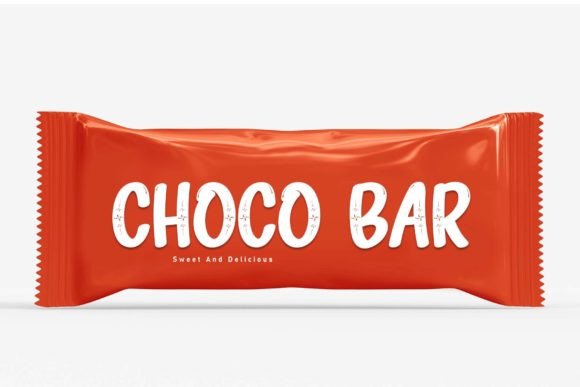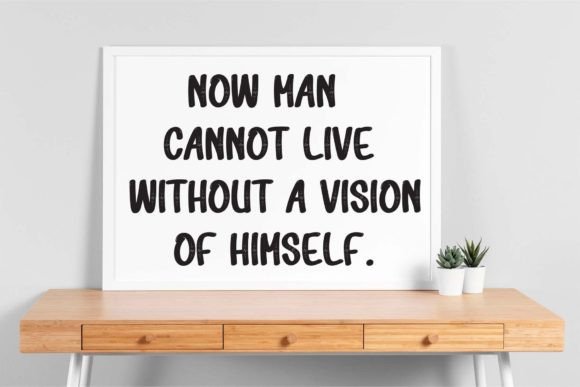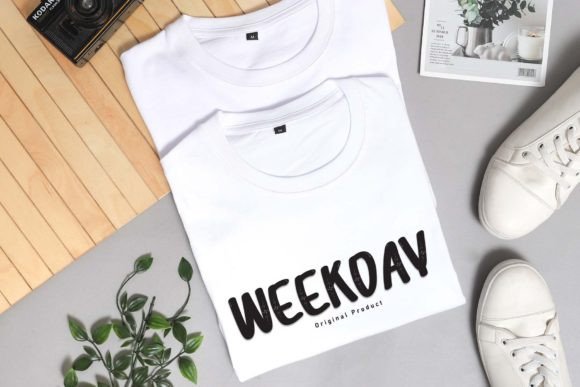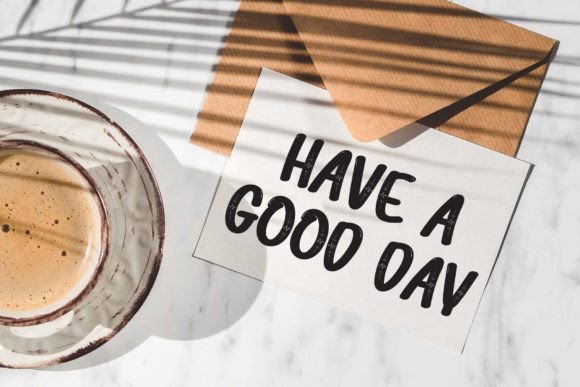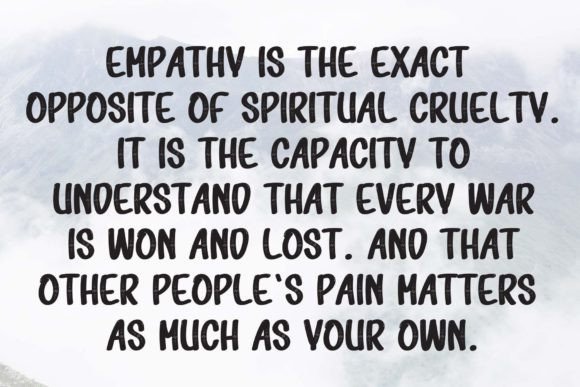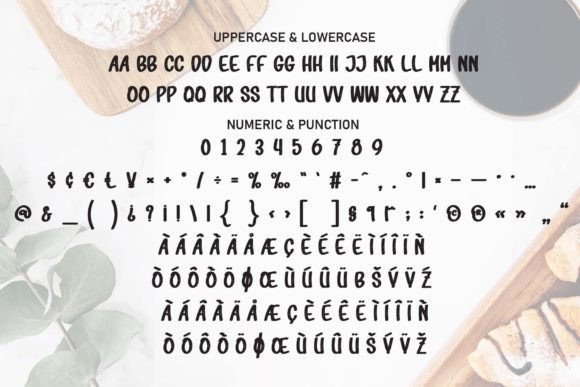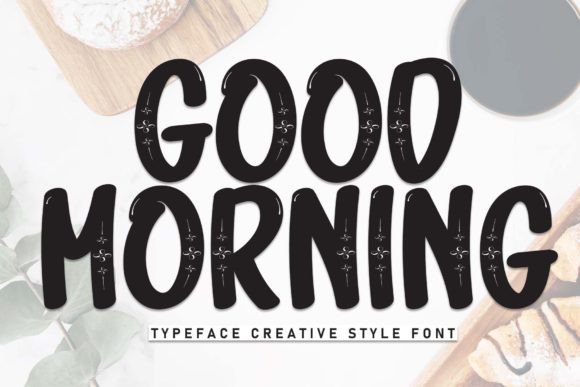
Introducing Good Morning Font: The Sweet and Friendly Display Font for Your Design Needs
Are you a designer or crafter looking for a font that can add a touch of warmth and friendliness to your designs? Look no further than Good Morning Font! This beautiful display font is perfect for creating stunning wedding invitations, greeting cards, and other designs that require a personal touch. In this article, we’ll take a closer look at Good Morning Font, its features, and how you can use it to elevate your designs.
What is Good Morning Font?
Good Morning Font is a sweet and friendly display font that’s designed to bring a smile to your face. Its cute and versatile design makes it ideal for a wide range of design projects, from wedding invitations and cards to posters, flyers, and more. The font’s playful and approachable style is sure to capture the attention of your audience and leave a lasting impression.
Key Features of Good Morning Font
- Cute and Versatile Design: Good Morning Font features a unique and charming design that’s perfect for adding a touch of personality to your designs.
- Easy to Read: Despite its playful style, Good Morning Font is easy to read, making it perfect for use in a variety of design projects.
- High-Quality Vectors: Good Morning Font is made up of high-quality vectors, ensuring that it looks great in any size or resolution.
- Multilingual Support: This font supports multiple languages, making it a great choice for designers who work with international clients.
How to Use Good Morning Font in Your Designs
Good Morning Font is a versatile font that can be used in a wide range of design projects. Here are some ideas to get you started:
- Wedding Invitations: Use Good Morning Font to create beautiful and unique wedding invitations that will set the tone for the big day.
- Greeting Cards: Add a personal touch to your greeting cards with Good Morning Font, perfect for birthdays, holidays, and other special occasions.
- Posters and Flyers: Use Good Morning Font to create eye-catching posters and flyers that will grab the attention of your audience.
- Social Media Graphics: Add a touch of personality to your social media graphics with Good Morning Font, perfect for creating engaging and shareable content.
Tips for Getting the Most Out of Good Morning Font
Here are some tips for getting the most out of Good Morning Font:
- Experiment with Different Sizes and Colors: Good Morning Font looks great in a variety of sizes and colors, so don’t be afraid to experiment and find the perfect combination for your design.
- Pair it with Other Fonts: Good Morning Font pairs well with other fonts, so try combining it with a sans-serif font for a unique and interesting look.
- Use it for Headings and Titles: Good Morning Font is perfect for use in headings and titles, where its playful style can really shine.
Good Morning Font is a sweet and friendly display font that’s perfect for designers and crafters who want to add a touch of warmth and personality to their designs. With its cute and versatile design, easy readability, and high-quality vectors, Good Morning Font is a great choice for a wide range of design projects. Whether you’re creating wedding invitations, greeting cards, or social media graphics, Good Morning Font is sure to bring a smile to your face and leave a lasting impression on your audience.